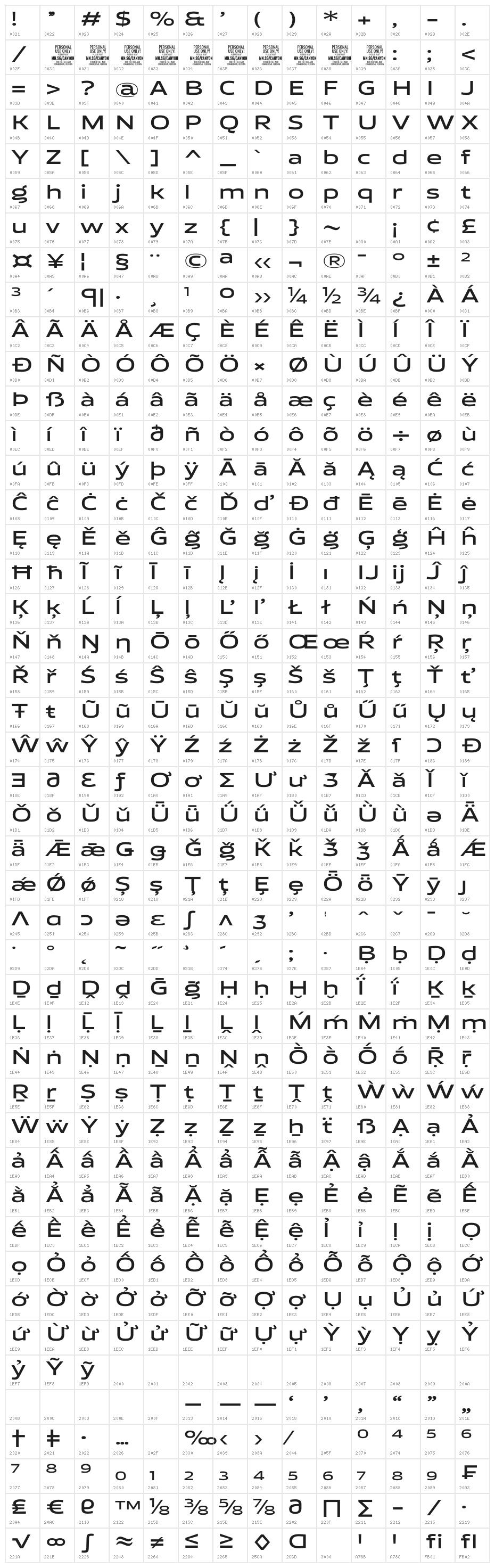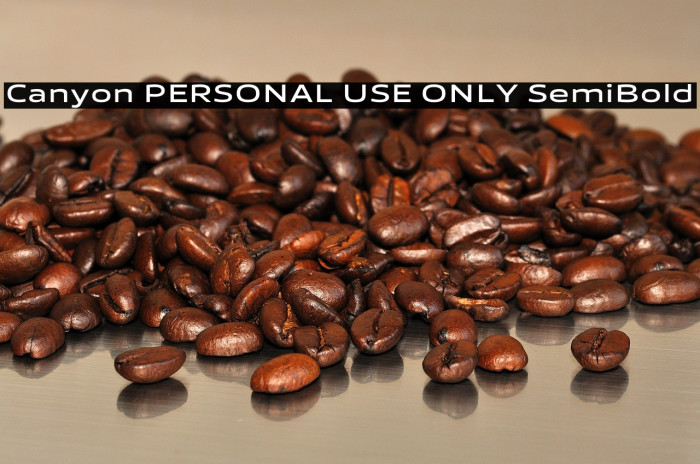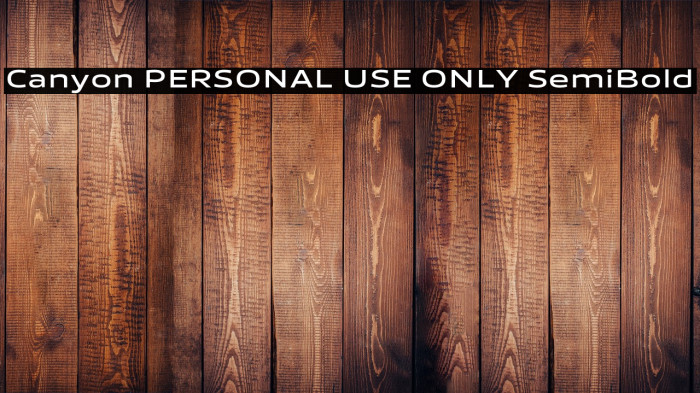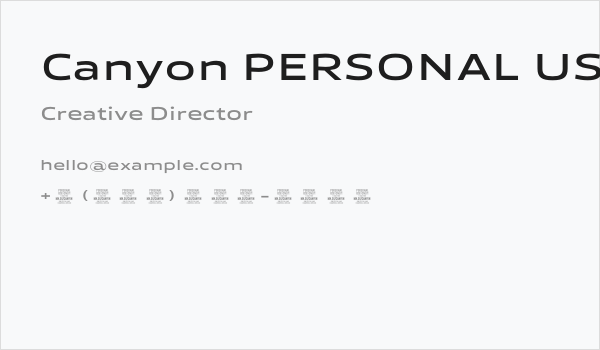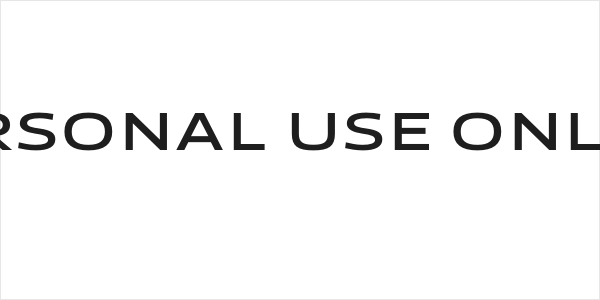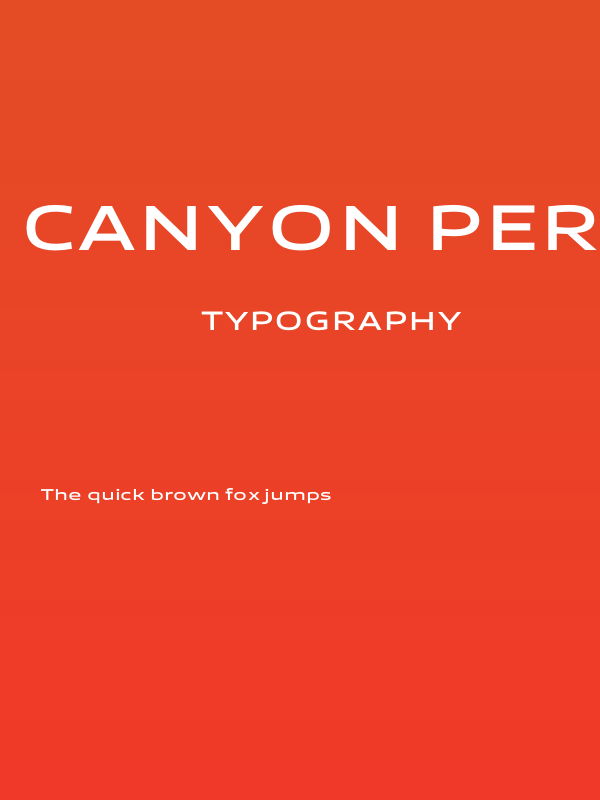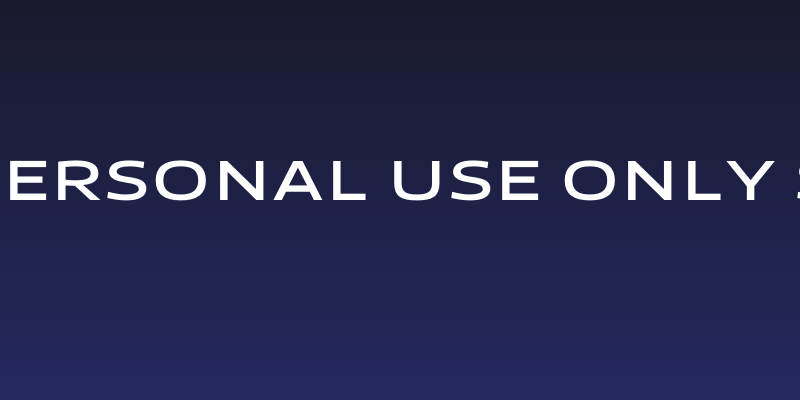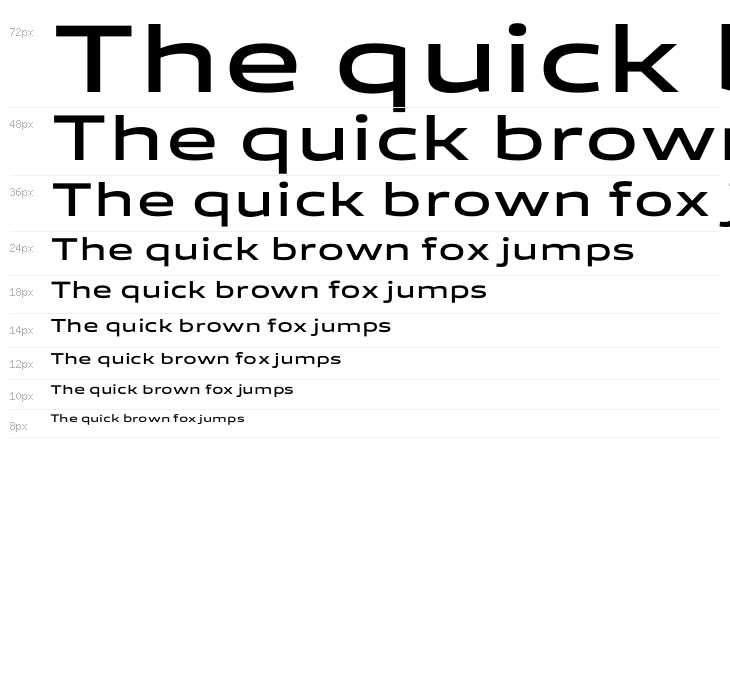
Canyon PERSONAL USE ONLY SemiBold Font
Canyon PERSONAL USE ONLY SemiBold Description
This font features a clean and modern sans-serif design with a semi-bold weight. The characters are well-balanced, offering a harmonious blend of curves and straight lines. Uppercase letters are bold and impactful, while lowercase letters maintain a consistent and readable form. The numerals are clear and distinct, ensuring legibility in various contexts. Special characters are thoughtfully designed, complementing the overall aesthetic. This font is versatile, suitable for both digital and print media, and can enhance the visual appeal of any project.